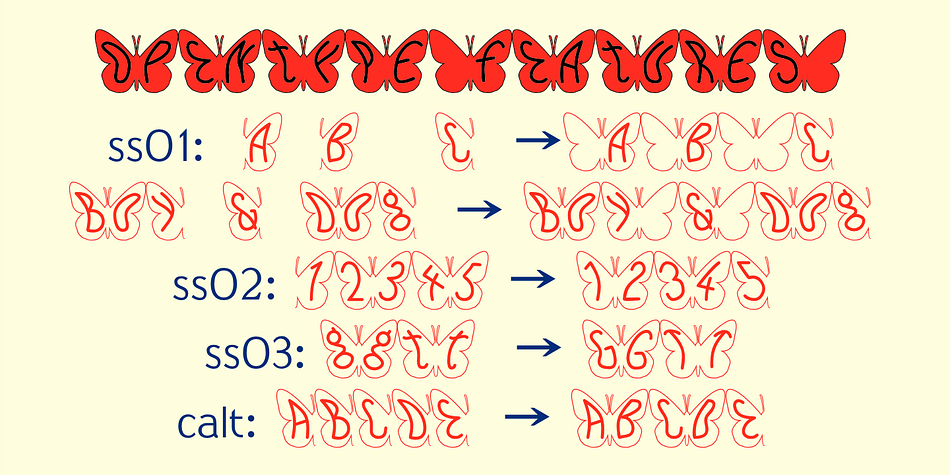
ButterflyWings
Designed by Robert Schenk, ButterflyWings is a monograms and novelty font family. This typeface has two styles and was published by Ingrimayne Type.
IngrimayneType has put letters inside a variety of objects, including bowling pins, book covers, coffee mugs, teapots, pumpkins, Christmas ornaments, train cars, tombstones, old bottles, circles, and rectangles. In each case the letters were placed on a single shape. The use of the Opentype feature of contextual alternatives makes it easy to use two different but alternating shapes. ButterflyWings puts its letters on the right and left wings of a butterfly.
The wings provide a large surface for drawing letters, but they have a odd shape so letters must be distorted to fit. The wings are symmetrical but some letters are not, so the right and left wing versions of the same letter are sometimes quite different.
Without the contextual alternative feature one could design a typeface like ButterflyWings but the user would have to alternate upper and lower case keys. With contextual alternatives turned on, the computer automatically alternates the letters creating a line of complete butterflies. Turning on the Opentype feature stylistic styles one (ss01) replaces the empty spaces with empty wings. However, sometimes an empty wing at the end of a line is unwanted and it can be removed by changing the typeface or by turning off the stylistic style for that character. The family contains two styles, a filled style and an outline style. They can be used separately or together in layers to add color. (Empty wings are on the logicalnot and registered characters.)
ButterflyWings is hard to read and should be used in small doses for decorative effects.